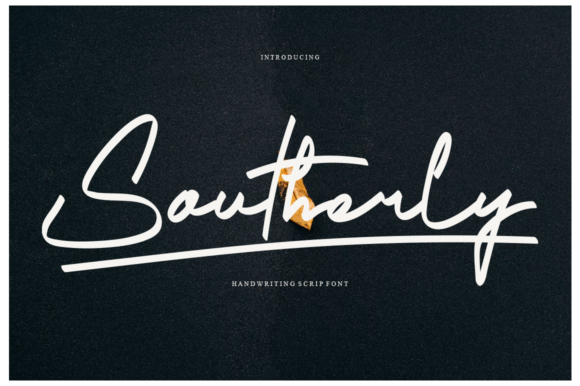
Journey into the realm of elegance and grace with Southerly Font, a script font family that exudes charm and sophistication. Crafted by the renowned abcd graffiti, this delicate and flowing font is designed to elevate your creative projects to new heights.
Southerly Font boasts a slender, cursive appearance, reminiscent of a gentle breeze dancing across a field of flowers. Its thin strokes and graceful curves create a visual symphony that is both captivating and serene. This enchanting font will effortlessly add a touch of romance and joy to every design you create.
Whether you're a seasoned designer or just starting your creative journey, Southerly Font is the perfect companion for your projects. Its versatility knows no bounds, making it ideal for a wide range of design applications. From stunning wedding invitations and elegant logos to eye-catching social media graphics and enchanting branding materials, Southerly Font will transform your ideas into captivating realities.
Step into a world of infinite possibilities with Southerly Font. Let its delicate lines and sweeping curves guide your creativity, and watch as your designs blossom into masterpieces. Experience the magic of Southerly Font today and embark on a journey of artistic expression that will leave you breathless.